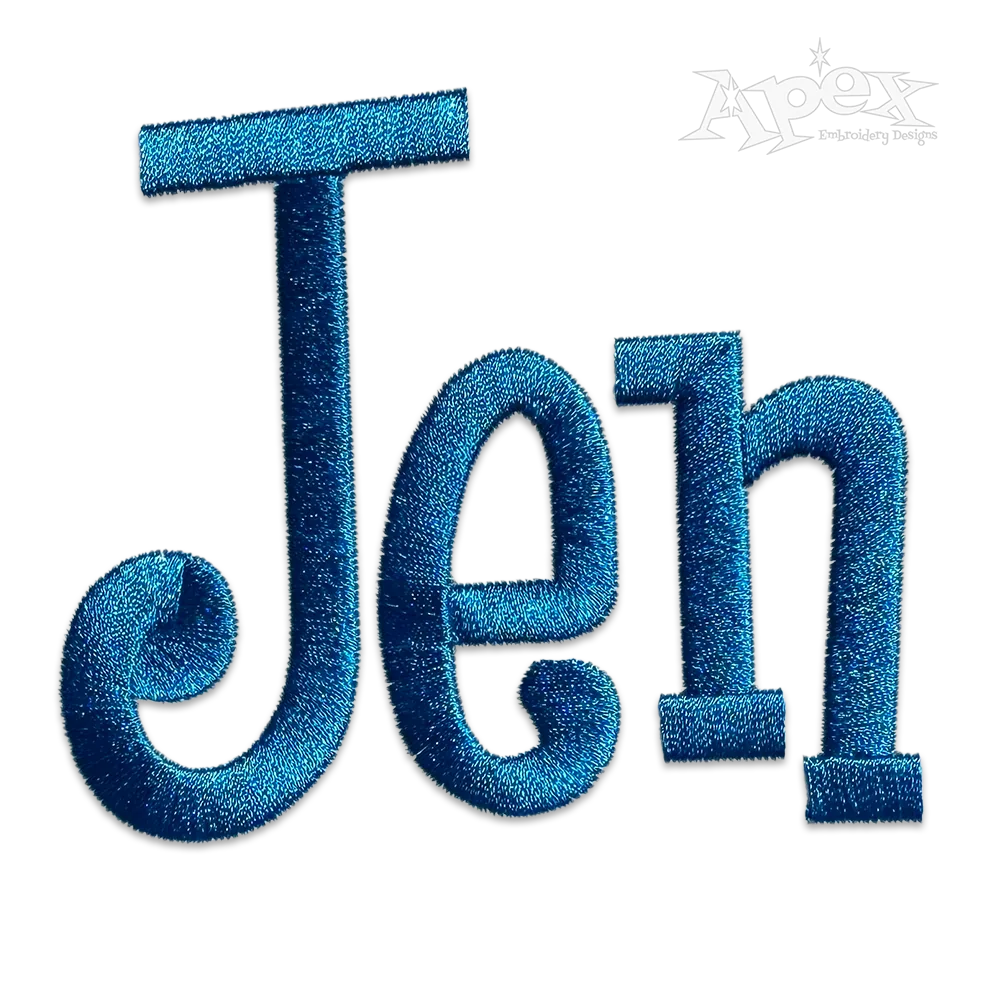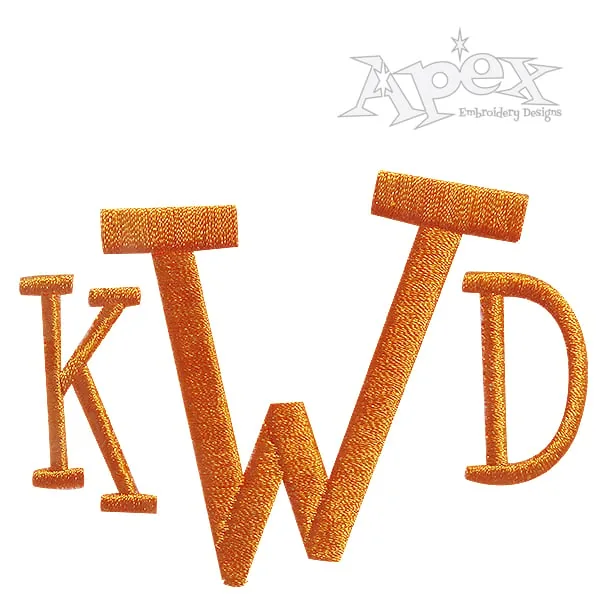
Boyz R Gross Embroidery Font
Born from the spirited energy of schoolyard banter and the unapologetic charm of childhood clubhouses, the Boyz R Gross Embroidery Font captures playful rebellion in every stitch. We envisioned a design that felt delightfully unscripted—like cheeky marker scrawls across a favorite notebook, yet translated into silky, pristine satin stitch paths. Every letter dances with lighthearted swagger and lively movement, striking a rare balance between nostalgic whimsy and professional embroidery precision. Whether you are creating statement sibling sets or customized youth gear, this font brings a vibrant, mischievous heartbeat to the fabric.
Engineered for maximum versatility across everyday projects and statement heirlooms, this typography suite includes both uppercase and lowercase character sets across four distinct scale profiles:
- 1.0-inch: Proportional lowercase baseline suited for pocket accents and subtle personalization
- 1.5-inch: Punchy uppercase companion, perfectly balanced to pair with the 1-inch lowercase letters
- 3.0-inch: Bold display scale with both uppercase and lowercase included for mid-sized apparel
- 4.0-inch: Large-format statement sizing with complete uppercase and lowercase sets for jacket backs and oversized totes
Boyz R Gross Craft & Letterform Details
Digitizing a font with intentionally quirky geometry requires an exacting artisan touch. While the letters appear carefree and spontaneous on the surface, beneath the thread lies a meticulously calculated embroidery architecture. We custom-mapped each satin column with varied stitch angles that mirror the natural pressure changes of a felt-tip pen, allowing the light to glint across the thread with lively dimension.
To prevent puckering on pliable knits and lightweight canvases, push-pull compensation is individually calibrated across all four sizes. The tight turns and playful curves transition smoothly without excessive thread buildup in the corners, ensuring that your machine runs smoothly from the first letter to the last. The result is a crisp, tactile embroidery experience that honors the art of custom monogramming while keeping an irrepressible sense of fun front and center.